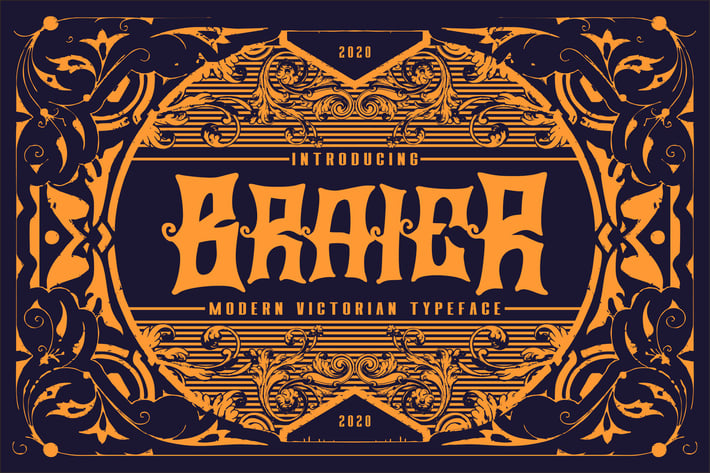
Braier | Modern Victorian Typeface
Braier | Modern Victorian Typeface with a calligraphy style, So beautiful on invitation like greeting cards, branding materials, business cards, quotes, posters, and more!